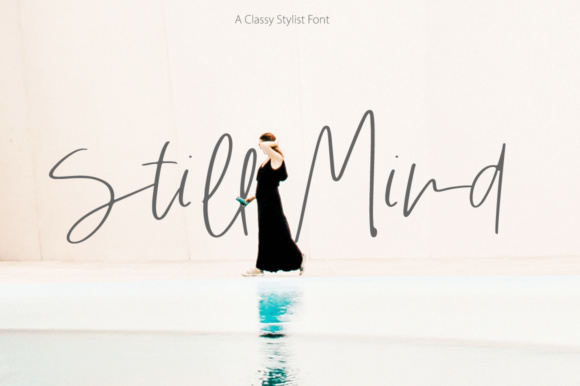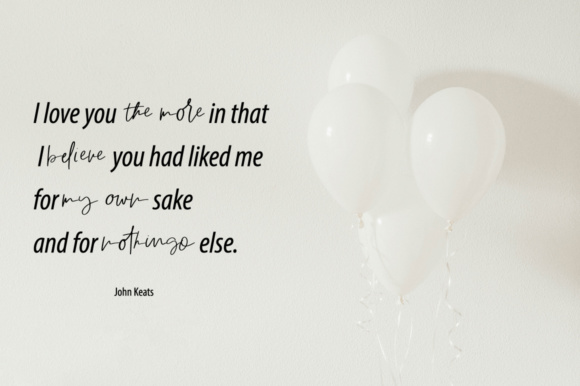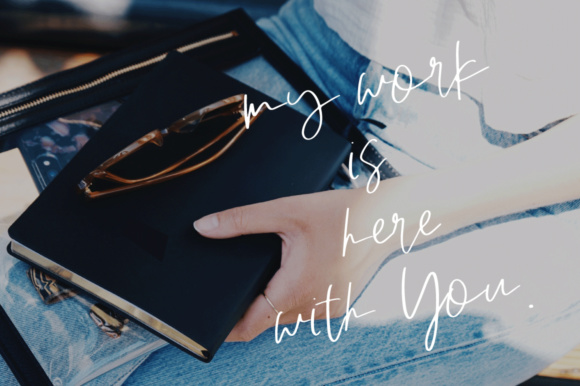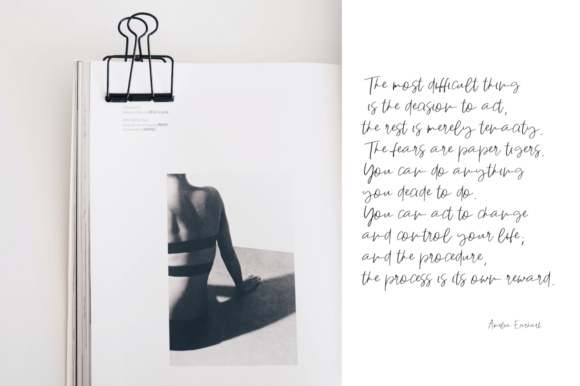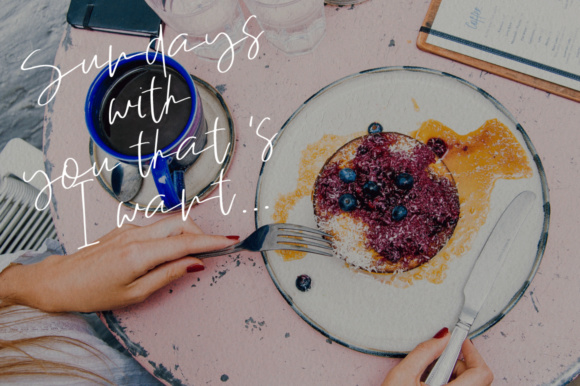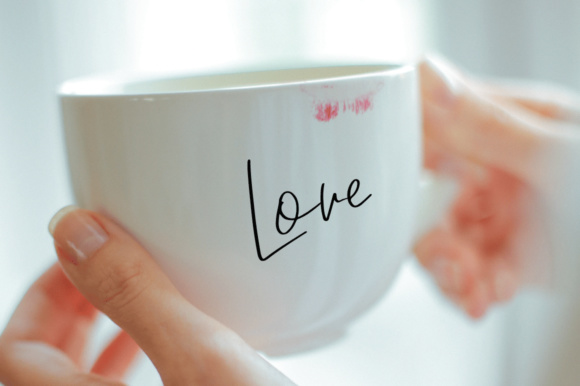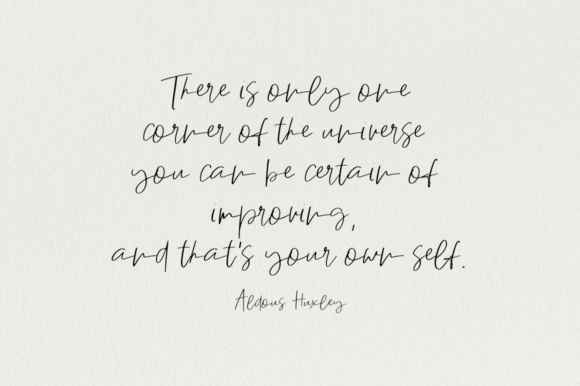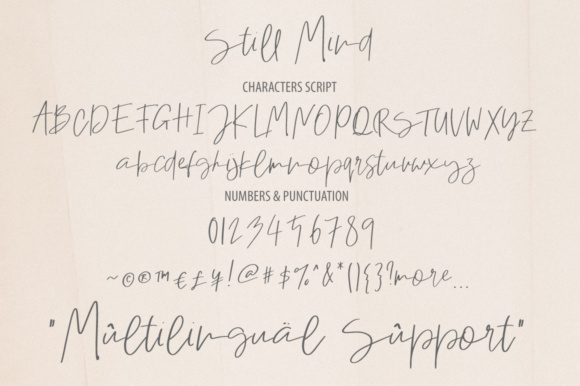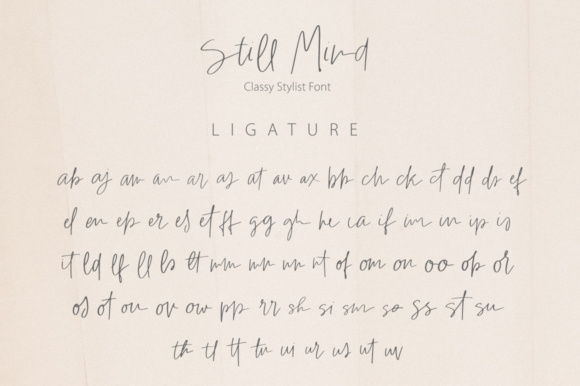
HomeScript FontsStill Mind Font Script Fonts Still Mind Font FacebookXPinterestWhatsApp Still Mind Font Poster 2 Still Mind Font Poster 3 Still Mind Font Poster 4 Still Mind Font Poster 5 Still Mind Font Poster 6 Still Mind Font Poster 7 Still Mind Font Poster 8 Still Mind Font Poster 9 About Still Mind Font The Still Mind is a classic, stylish font perfect for high impact headlines. DOWNLOAD NOW People also explored Steel Hammer Font Santa Leona Font Cafetoria Font Quickly Font Angela Font Jinayra Font Tetradoth Font Brightfarm Font Closaile Font 318 0 TagsStill Mind Font Previous articlePlayful FontNext articleElementary Font LEAVE A REPLY Cancel reply Comment: Please enter your comment! Name:* Please enter your name here Email:* You have entered an incorrect email address! Please enter your email address here Website: Save my name, email, and website in this browser for the next time I comment. Personal Use Free Frizton Personal Use Free Read more about this font Solaria Personal Use Free Read more about this font GoodFay Personal Use Free Read more about this font Lumber Personal Use Free Read more about this font BLOG Best Fonts for T-Shirt Design – Top 2025 Picks In 2025, t-shirt design has become more than just fashion—it's a form of self-expression. Whether you're... Elegant Wedding Invitation Fonts – Handwritten & Script Fonts Transform Your Website: Elevate Your Typography with 7 Best Web Font Generators Where to Buy American Fonts Online in 2024